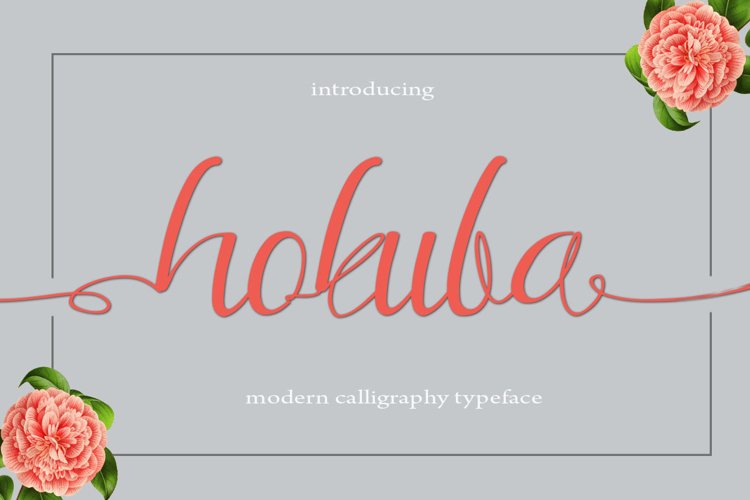
Hokuba is another lovely modern calligraphy typefaces, which is combining the style of classic calligraphy with an modern style. combines from copperplate to contemporary typeface with a dancing baseline, modern and elegant touch.
The Features of this fonts is;
Standart ligatures
Stylistic Alternates
Stylistic sets
Hokuba Can be used for various purposes.such as headings, logos, wedding invitation, t-shirt, letterhead, signage, lable, news, posters, badges etc.